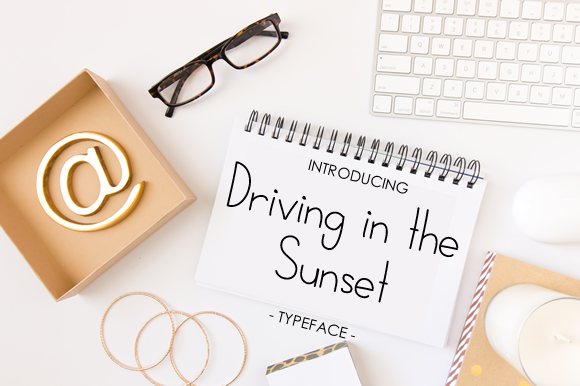
Driving in the Sunset Font
About Driving in the Sunset Font
Driving in the Sunset is a beautiful handwritten font, ideal for use in relaxed projects. This font works well in combination with other fonts, and can add a laid-back appeal to your designs.